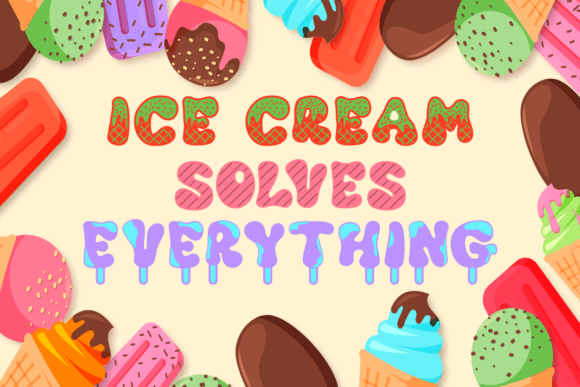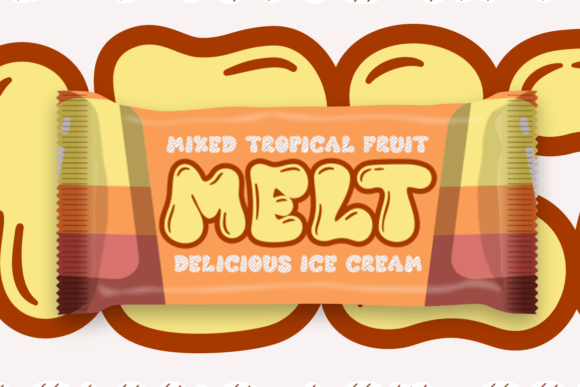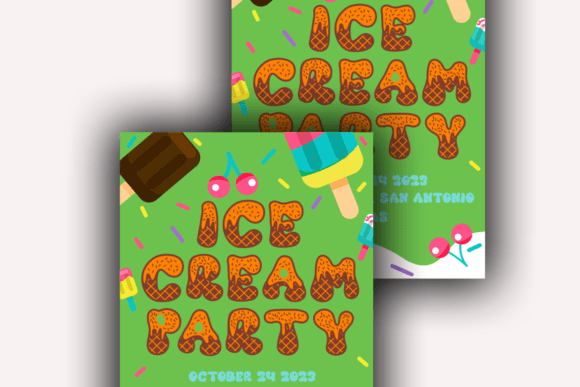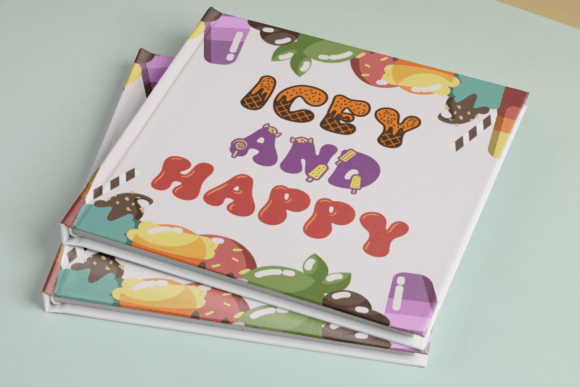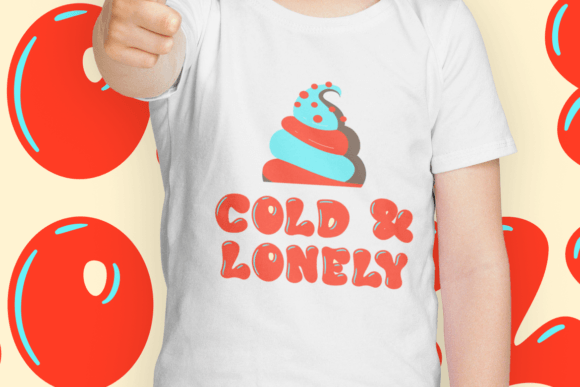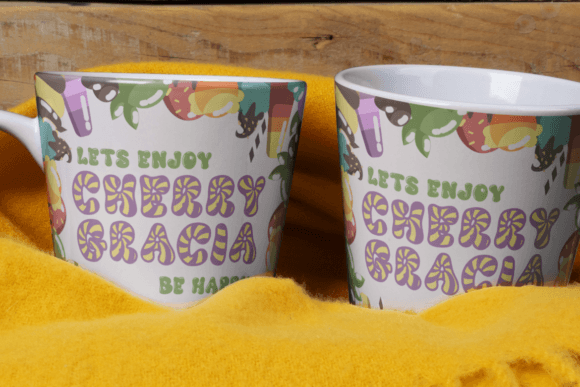
Cold Snowflake Font: A Quirky and Playful Typeface for Your Designs
Are you looking for a font that can add a touch of fun and playfulness to your designs? Look no further than the Cold Snowflake Font! This delightful typeface is designed to capture the essence of ice cream and candy in a quirky and charming way. With its bold, chubby letterforms and twelve charming variations, Cold Snowflake is the perfect choice for designers and crafters who want to create eye-catching and engaging designs.
The Inspiration Behind Cold Snowflake
Cold Snowflake is a font that is inspired by the sweet and indulgent world of ice cream and candy. The font features quirky, bold, and chubby letterforms that mirror the playful and fun theme it represents. The designer of Cold Snowflake aimed to create a typeface that would evoke a sense of fun, playfulness, and a vibrant, colorful aesthetic. And with its twelve distinctive variations, this font is sure to add a touch of whimsy to your designs.
Key Features of Cold Snowflake
So, what makes Cold Snowflake so special? Here are some of its key features:
- Quirky and playful design: Cold Snowflake features bold, chubby letterforms that are sure to grab attention.
- Twelve charming variations: The font comes with twelve distinctive variations inspired by ice cream, candy, cones, sprinkles, sticks, melting treats, and chocolate.
- Versatile: Cold Snowflake can be used alone or in combination with its variations to create unique and eye-catching designs.
- Suitable for a wide range of applications: This font is perfect for logos, crafting projects, invitations, packaging, posters, titles, businesses, greeting cards, stickers, children’s books, magazines, and any design related to the delightful world of ice cream and candy.
Cold Snowflake is a font that is perfect for designers and crafters who want to add a touch of fun and playfulness to their designs. Whether you are creating a logo, crafting project, or invitation, this font is sure to make your design stand out. The font is also suitable for children’s projects, crafting, and any design that seeks to evoke a sense of fun, playfulness, and a vibrant, colorful aesthetic.
Applications of Cold Snowflake
So, what can you use Cold Snowflake for? The possibilities are endless! Here are some ideas to get you started:
- Logos: Create a fun and playful logo for your business or brand with Cold Snowflake.
- Crafting projects: Add a touch of whimsy to your crafting projects, such as handmade cards, gift tags, and scrapbooking.
- Invitations: Create eye-catching invitations for parties, events, and celebrations.
- Packaging: Use Cold Snowflake to create fun and playful packaging for your products.
- Posters and titles: Create eye-catching posters and titles for your business or brand.
- Greeting cards and stickers: Add a touch of fun and playfulness to your greeting cards and stickers.
- Children’s books and magazines: Use Cold Snowflake to create engaging and fun designs for children’s books and magazines.
In conclusion, Cold Snowflake is a delightful typeface that is sure to add a touch of fun and playfulness to your designs. With its quirky and playful design, twelve charming variations, and versatility, this font is perfect for designers and crafters who want to create eye-catching and engaging designs. Whether you are creating a logo, crafting project, or invitation, Cold Snowflake is the perfect choice. So why not give it a try and see how it can add a touch of whimsy to your designs?